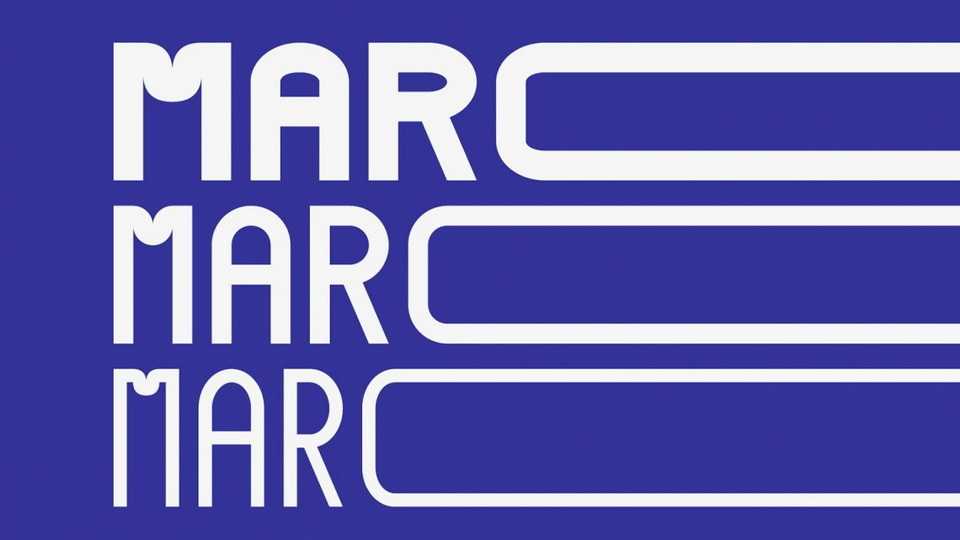
Download Marc font, a modular display typeface based on simple geometric forms. Marc offers a vast range of design possibilities and helps to create eye-catching designs, including impact headlines, posters, ads, covers and so on.
Designer: Justine Gagnaire